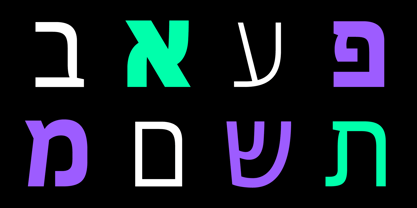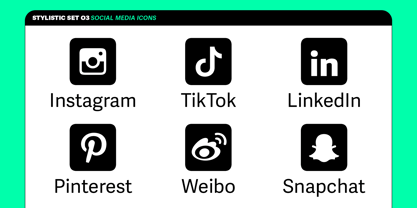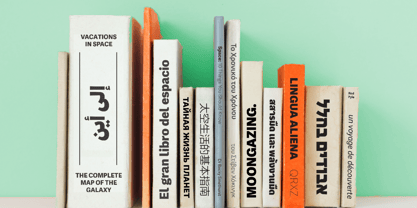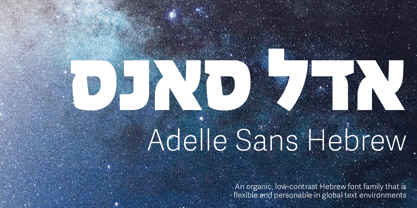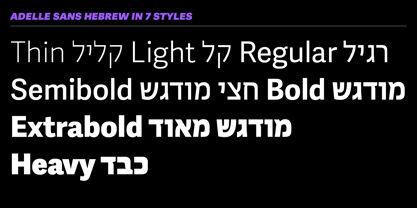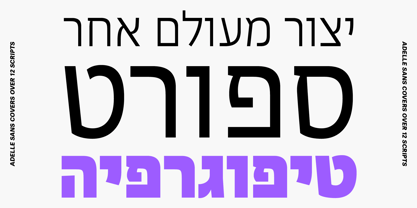
Adelle Sans Hebrew
by TypeTogether
The Adelle Sans Hebrew Font Family was designed by Veronika Burian, José Scaglione, Liron Lavi Turkenich and published by TypeTogether. Adelle Sans Hebrew contains 7 styles and family package options. More about this family
multilingual documents and multicultural branding. Adelle Sans Hebrew is Liron Lavi Turkenich’s translation of the Latin’s forms into the voice of more than nine million people. The original Adelle Sans, Jose Scaglione and Veronika Burian’s awardwinning sans serif, provides a more clean and spirited take on the traditional grotesque sans. As is typical with TypeTogether typefaces, the most demanding editorial design problems were taken into consideration when creating Adelle Sans Hebrew. The combination of lively character and unobtrusive appearance inherent to grotesque sans serifs make it an utterly versatile tool for every imaginable situation. Whether for branding, signage, editorial, or advertising, the keyword behind Adelle Sans Hebrew’s use is flexibility.
Adelle Sans Hebrew is available in seven weights that capitalise on legibility and provide the designer a wide range of text emphasis within their layout. By creating weights from Ultra Thin to Heavy, the Hebrew is a perfect counterpart to the Latin in tone, vertical proportions, and functionality. This ensures an harmonious fit between both type families in the same block of text and a pleasing change of texture when used at similar point sizes.
Rooted in the belief that broad language support is crucial to modern type design, Adelle Sans Hebrew is yet another push in TypeTogether’s ongoing multilingual efforts. Adding language support is not a simple act of matching geometry stroke for stroke; each script must harmonise with the others while still maintaining its own identity. Hebrew script is inherently more square than Latin, with a mix of rounded corners and straight stems that are built with discrete strokes. The rigidity of Adelle Sans Hebrew is therefore as expected for its Latin counterpart. The Adelle family’s naturally clean and spirited shapes lend themselves to an agile Hebrew translation of the colour and feel of the Latin, matching the overall functionality, purpose, and cultural awareness.
Across the entire multilingual family — Arabic, Armenian, Chinese, Cyrillic, Devanagari, Greek, Georgian, Lao, Latin, Latin Extended, Thai, and now Hebrew, with more on the way — each has been engineered to optically match the proportions of its counterparts. Adelle Sans Hebrew’s exhaustive character set and OpenType support delivers consistent, flexible, and personable results in digital and printed multilingual documents and multicultural branding.
Designers: Veronika Burian, José Scaglione, Liron Lavi Turkenich
Foundry: TypeTogether